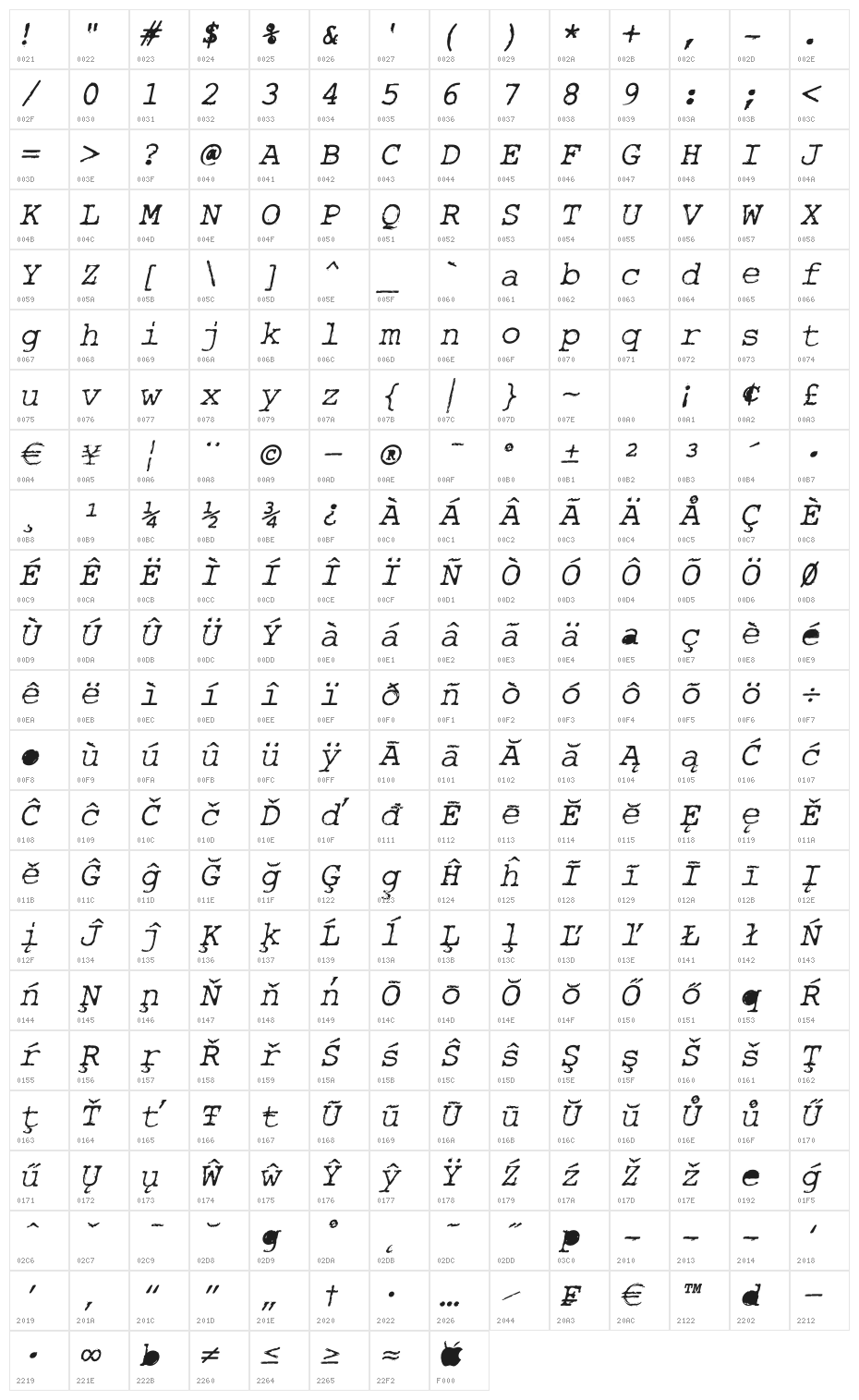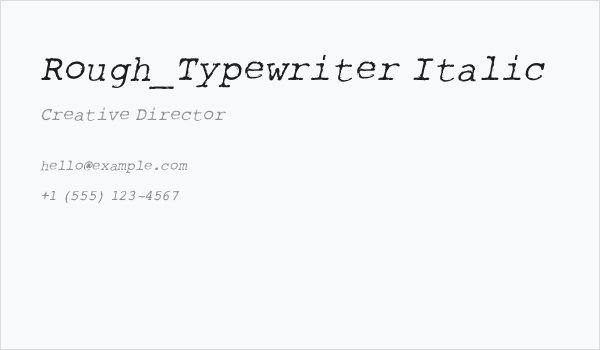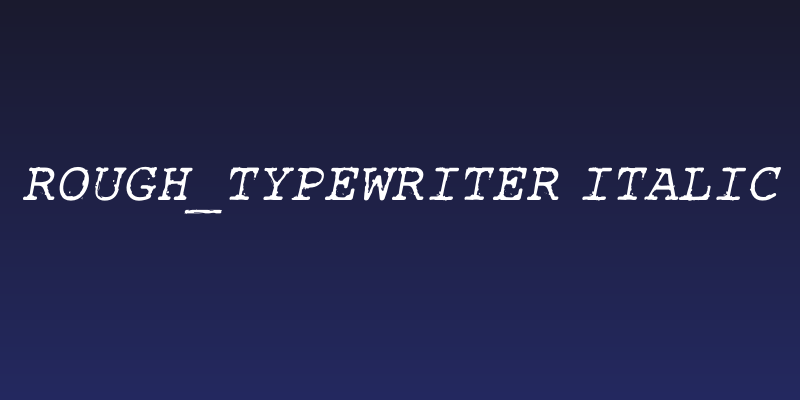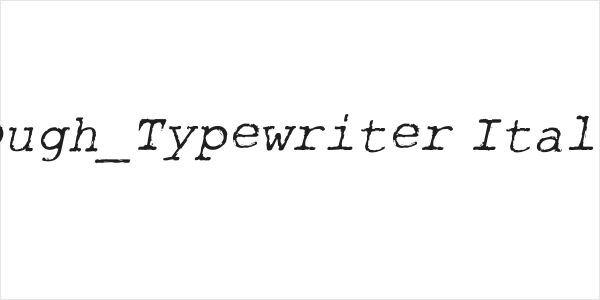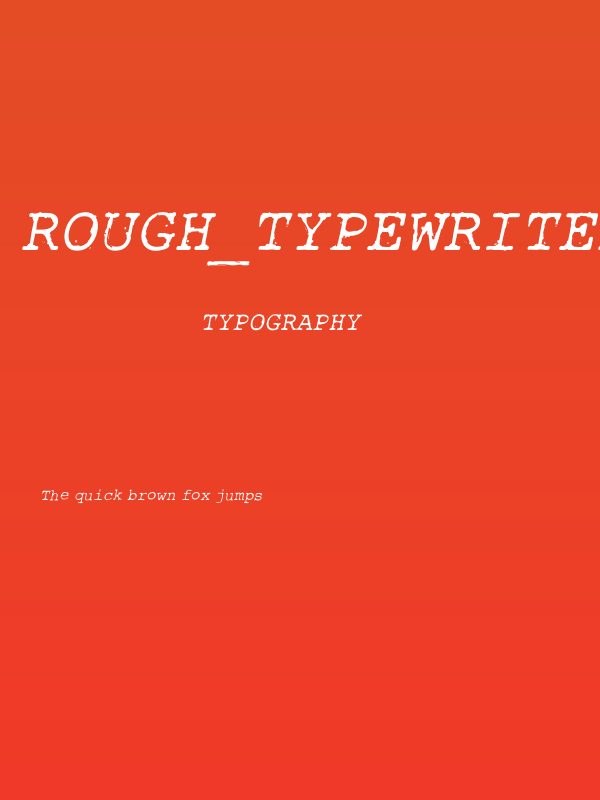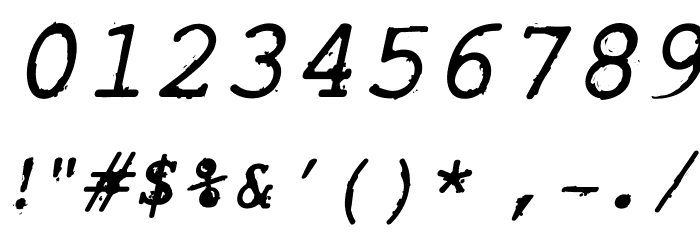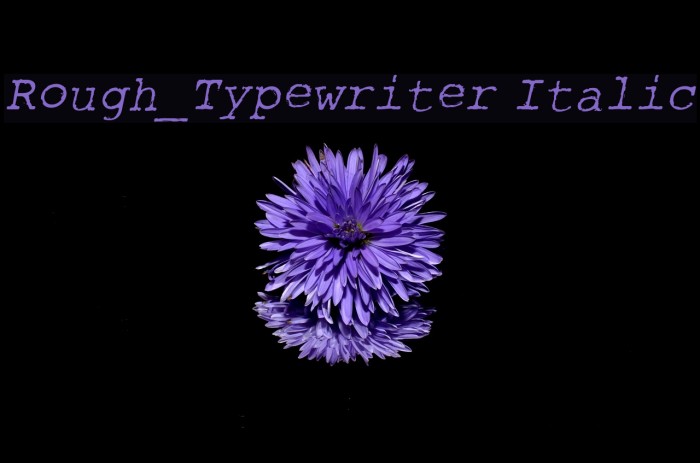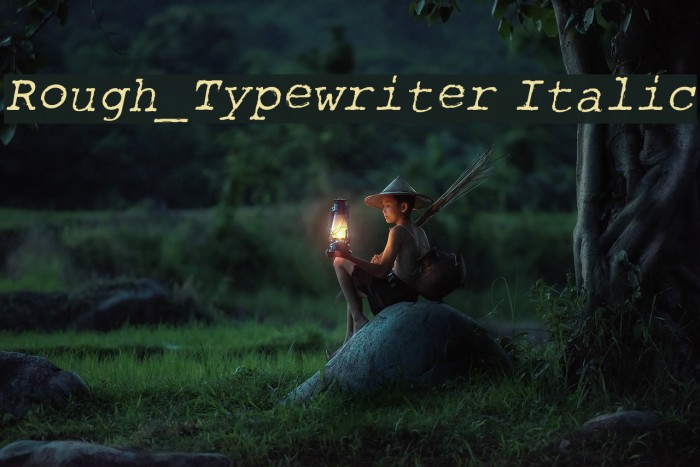
Rough_Typewriter Italic Font
Rough_Typewriter Italic Description
This typewriter-inspired font features a rough, distressed texture that gives it a vintage and authentic feel. The characters are slightly slanted, indicative of an italic style, and exhibit irregular edges that mimic the look of ink on paper. The uppercase and lowercase letters maintain a consistent style, with rounded edges and a slightly uneven baseline, enhancing the typewriter effect. Numbers and special characters are designed with the same rugged texture, ensuring uniformity across all glyphs. The font's unique appearance makes it ideal for projects that require a retro or handmade aesthetic.
| Overall Style | Vintage |
| Proposed Projects | Ideal for vintage-themed designs, retro posters, handmade crafts, or any project seeking an authentic typewriter look. |